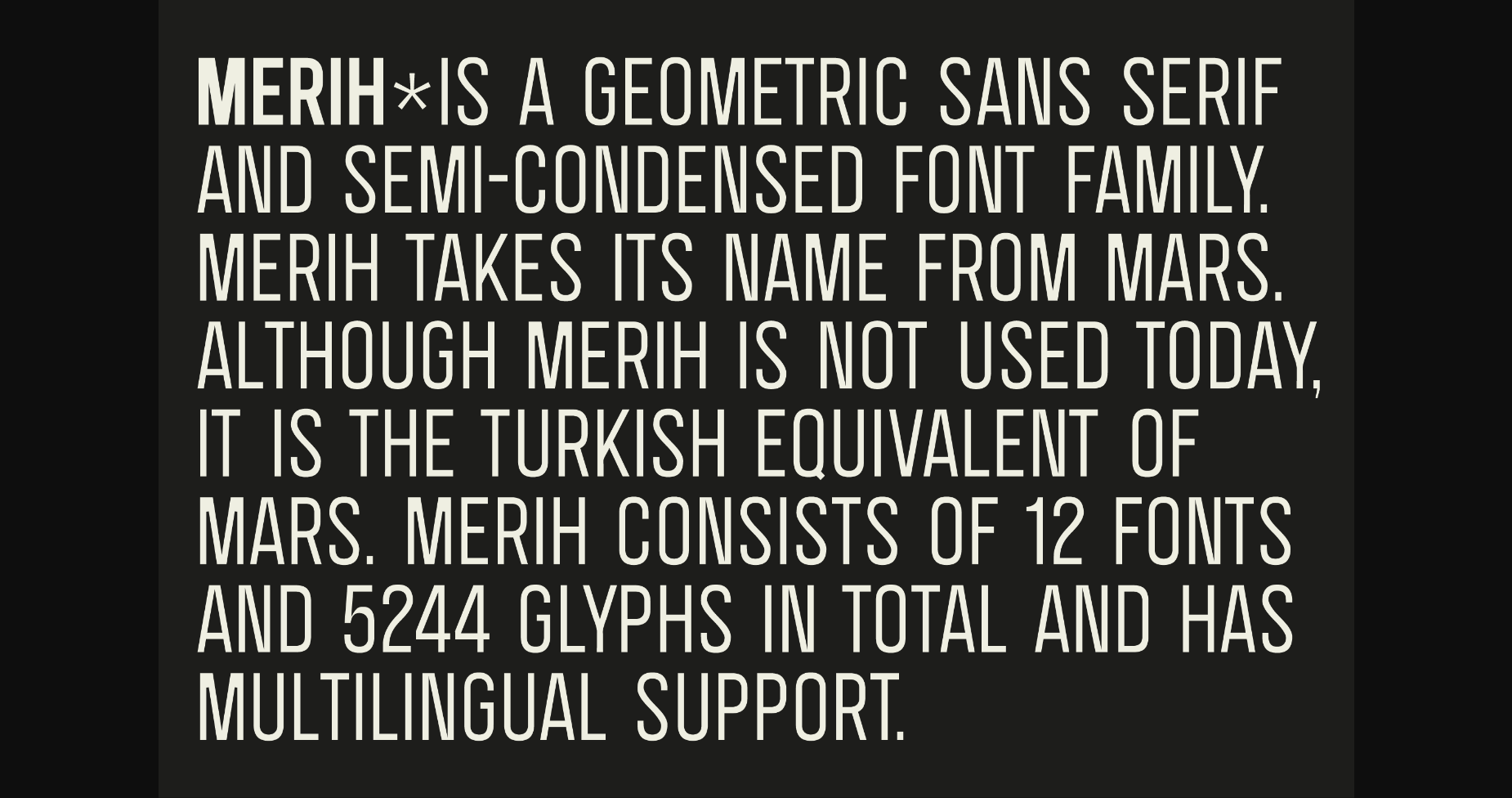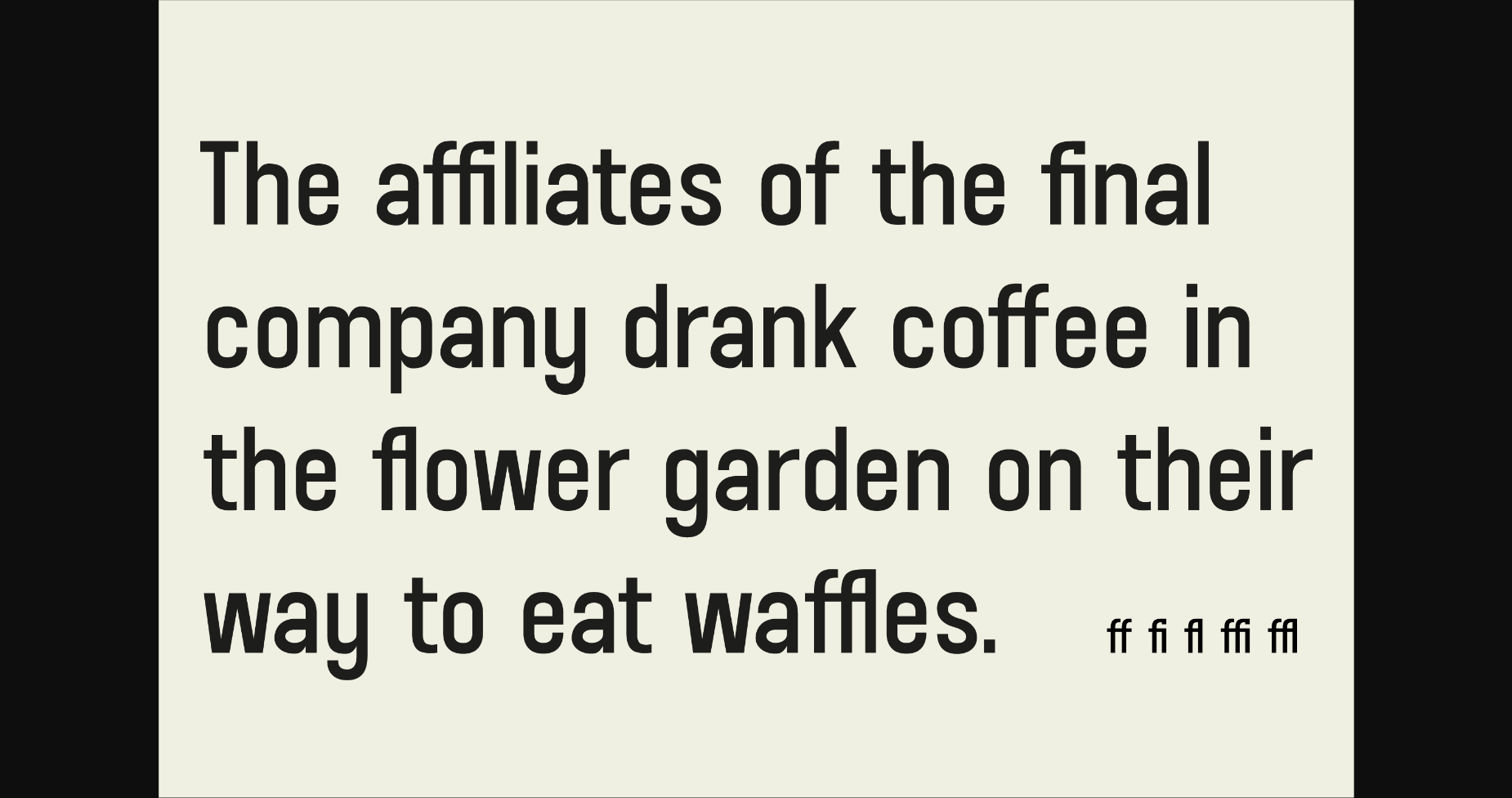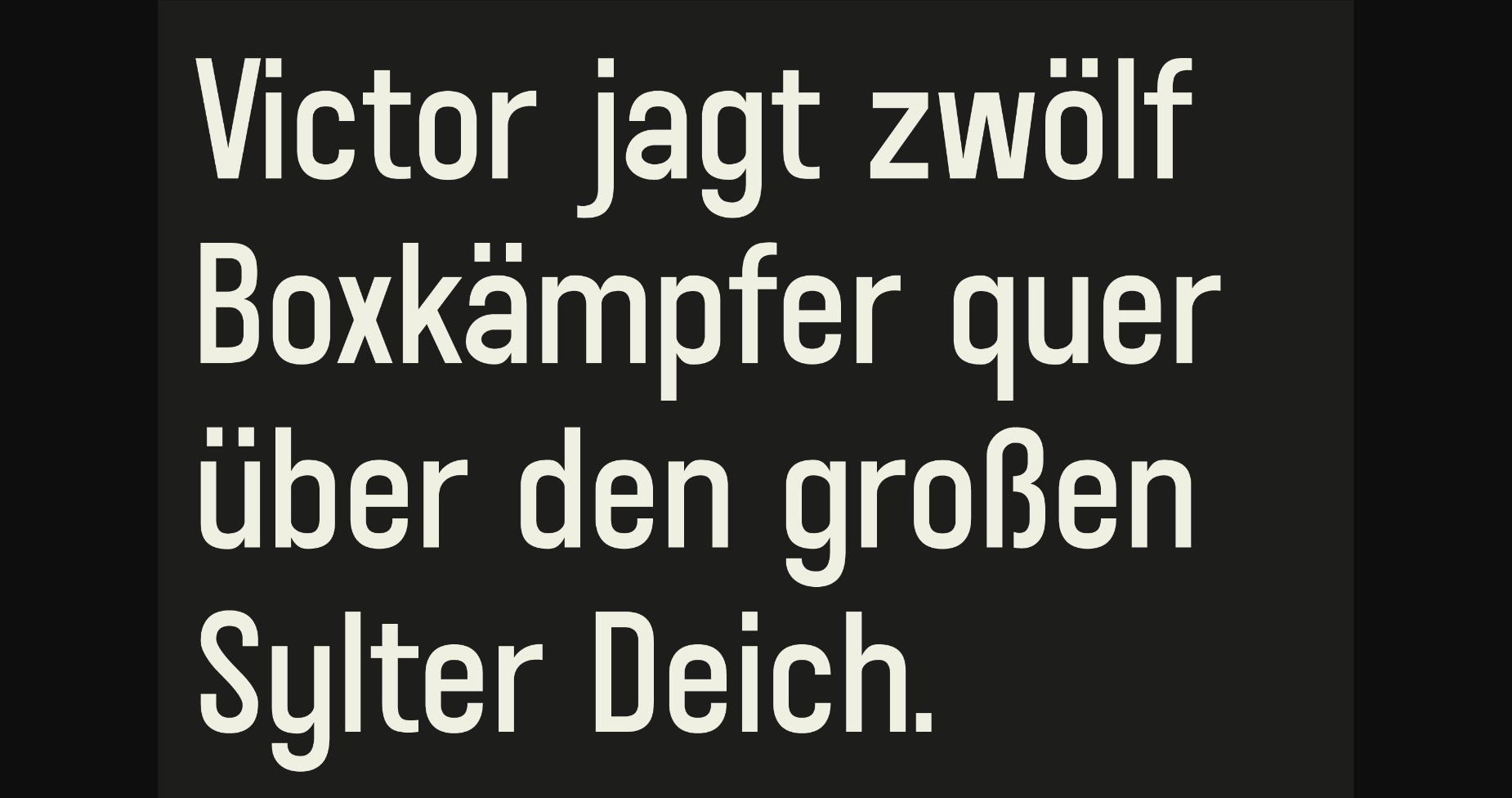
About SK Merih Font
SK Merih is a modern and clean sans serif font. It will elevate a wide range of crafting ideas, from cards, to branding, labels and much more.